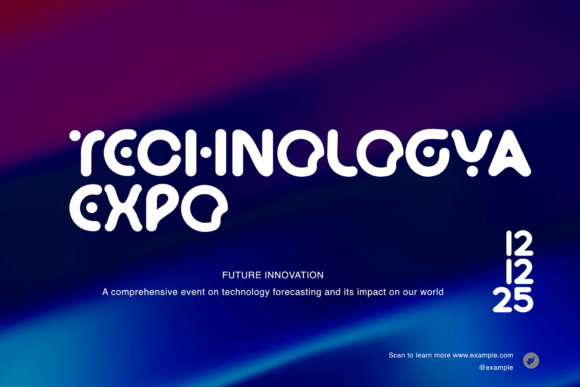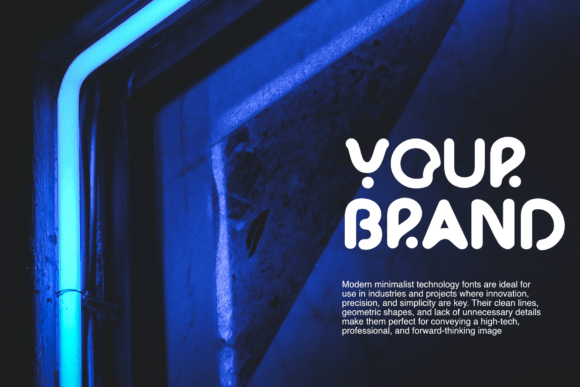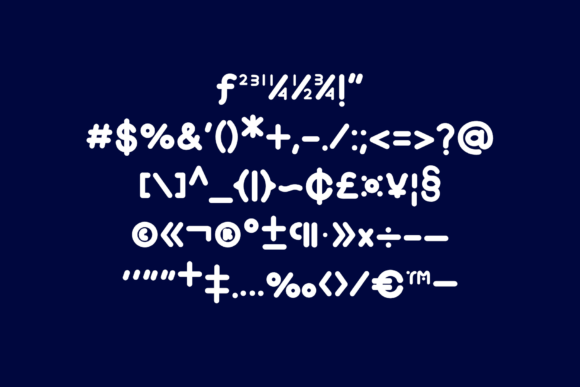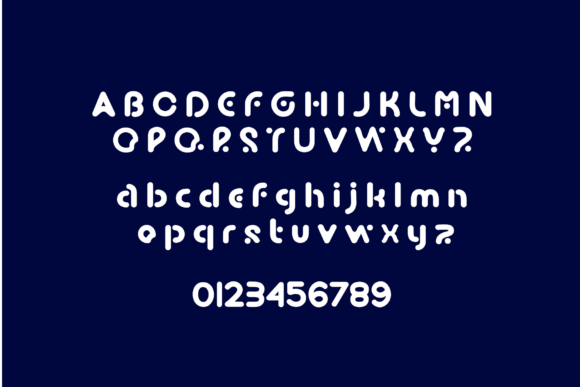
Introducing Geotech Font: The Modern, Minimalist Choice for Futuristic Designs
In the world of design, fonts play a crucial role in conveying the intended message and aesthetic of a project. For designers and crafters looking to create a futuristic, innovative, and clean impression, the Geotech Font is an excellent choice. This modern, minimalist technology font has been designed to cater to various design needs, making it a versatile and reliable option for a wide range of projects.
What is Geotech Font?
Geotech Font is a contemporary, sans-serif font that embodies the essence of modern technology. Its clean lines, precise curves, and minimalist approach make it an ideal choice for designers seeking to create a futuristic and innovative look. The font’s sleek design ensures that it remains legible and readable, even at smaller sizes, making it perfect for use in various applications, from digital interfaces to print materials.
Key Features of Geotech Font
- Modern and Minimalist Design: Geotech Font boasts a clean and minimalist design, making it perfect for projects that require a futuristic and innovative look.
- High Legibility: The font’s precise curves and clean lines ensure high legibility, even at smaller sizes.
- Versatile: Geotech Font is suitable for a wide range of design needs, including logos, headings, and body text.
- Easy to Read: The font’s clear and concise design makes it easy to read, reducing eye strain and improving user experience.
Use Cases for Geotech Font
Geotech Font is an excellent choice for various design projects, including:
- Technology and Software: The font’s modern and futuristic design makes it perfect for technology and software-related projects, such as logos, interfaces, and documentation.
- Branding and Logos: Geotech Font’s clean and minimalist design makes it an excellent choice for branding and logo design, helping to create a strong and memorable visual identity.
- Web and Mobile Applications: The font’s legibility and readability make it suitable for use in web and mobile applications, ensuring a seamless user experience.
- Print Materials: Geotech Font can also be used in print materials, such as brochures, flyers, and business cards, to create a modern and professional look.
Benefits of Using Geotech Font
By using Geotech Font, designers and crafters can benefit from:
- Improved User Experience: The font’s legibility and readability can improve user experience, reducing eye strain and increasing engagement.
- Increased Versatility: Geotech Font’s versatility makes it suitable for a wide range of design needs, reducing the need for multiple fonts.
- Enhanced Professionalism: The font’s modern and minimalist design can enhance the professionalism of a project, making it more appealing to audiences.
| Font Name | Geotech Font |
| Author | WAP |
In conclusion, Geotech Font is a modern, minimalist technology font that is suitable for various design needs that want to convey a futuristic, innovative, and clean impression. Its clean lines, precise curves, and high legibility make it an excellent choice for designers and crafters looking to create a professional and memorable visual identity. With its versatility and ease of use, Geotech Font is an excellent addition to any design project.
Whether you’re designing a logo, creating a website, or crafting a print material, Geotech Font is an excellent choice. Its modern and minimalist design ensures that your project will stand out, conveying a sense of innovation and professionalism. So why not give Geotech Font a try and experience the benefits of a well-designed font for yourself?